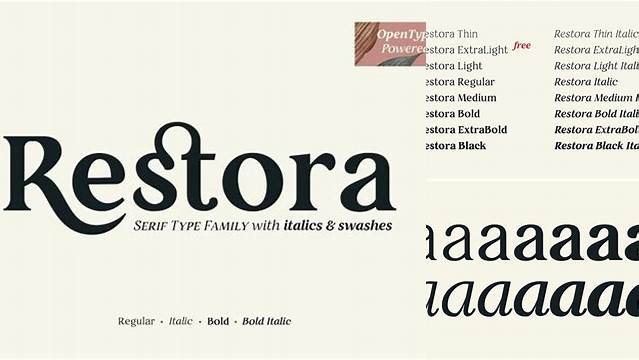
Restora Font Free Download: Elegant Serif For Your Designs
Hey guys, are you on the hunt for a timeless font to elevate your designs? Look no further! Today, we're diving deep into the world of typography and shining a spotlight on Restora, a fantastic free old-style serif font that's perfect for a wide array of projects. We'll explore why this font is a must-have in your design arsenal, where to snag it for free, and how you can use it to create stunning visuals that grab attention. Get ready to transform your projects with the elegance and readability of Restora!
What Makes Restora Font Special?
Restora isn't just another font; it's a statement. Its old-style serif design brings a touch of classic elegance and sophistication to any project. But what exactly sets it apart? Let's break down the key features that make Restora a standout choice.
Firstly, the serifs. The defining characteristic of any serif font is the presence of small strokes, or serifs, at the ends of the letters. In Restora, these serifs are beautifully crafted, adding a refined and traditional feel. They're not overly embellished, which means the font maintains a clean and readable appearance, even at smaller sizes. This is crucial for body text in books, magazines, and websites where readability is paramount. The thoughtful design of the serifs ensures they enhance the overall aesthetic without compromising functionality.
Secondly, the letterforms. Restora boasts letterforms that are carefully balanced and well-proportioned. Each character has been designed with attention to detail, ensuring a harmonious visual experience. The curves are graceful, the strokes are consistent, and the spacing is optimized for both legibility and visual appeal. This meticulous approach makes Restora a pleasure to read, whether you're using it for headlines, subheadings, or blocks of text. The design conveys a sense of professionalism and trustworthiness, making it ideal for branding and marketing materials.
Then we have versatility. While Restora shines in projects where a touch of classicism is desired, it is also incredibly versatile. It works wonderfully in various contexts, from elegant wedding invitations to modern website layouts. This adaptability is a testament to the font's balanced design, which allows it to seamlessly blend with different styles and aesthetics. Whether you're creating a vintage-inspired design or something contemporary, Restora has got you covered.